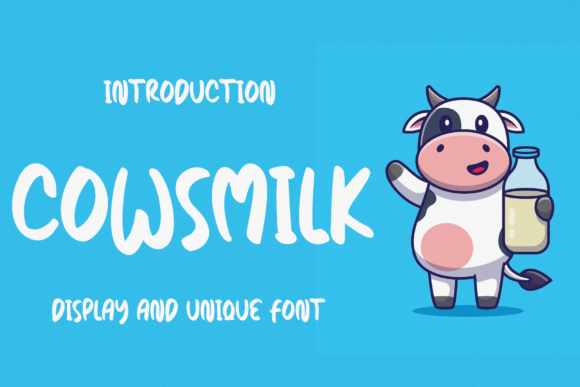
Crafting Joy with the Cowsmilk Font
Imagine you’re working on a children’s book, and you need to add a playful title that will capture the attention of your young readers. You browse through your font library, searching for the perfect combination of whimsy and charm. And then, you stumble upon it – the Cowsmilk Font. This adorable display font is designed to bring a smile to your readers’ faces, making it the perfect choice for cartoon-related designs, children’s games, and more.
With its friendly and adaptable nature, the Cowsmilk Font is a valuable asset for designers looking to add a touch of joy to their creations. Whether you’re designing a quote, a title, or a brand name, this font is sure to make a lasting impression. Its versatility and charm make it a must-have for any designer looking to create something truly special.
Cowsmilk Font Key Features
- Font Family: A sans-serif font with a modern and playful twist, designed for digital use.
- Unique Characteristics: The font features a distinctive rounded edge and a subtle, hand-drawn feel, giving it a friendly and approachable appearance.
Cowsmilk Font Review
I’ve been experimenting with the Cowsmilk Font, and I have to say, it’s been a mixed bag for me. Here are my thoughts.
- Unique design: The Cowsmilk Font has a distinct, playful vibe that’s perfect for projects that need a whimsical touch.
- Creativity booster: The font’s quirky style can inspire creativity and help designers think outside the box.
- Readability: Despite its unconventional design, the font is surprisingly readable, even at smaller sizes.
- Overuse potential: The Cowsmilk Font’s playful style can be easily overused, making it look gimmicky or unprofessional.
- Limited versatility: The font may not be suitable for formal or serious projects, where a more traditional font would be a better fit.
- Technical issues: I’ve experienced some technical difficulties with the font, such as kerning issues and inconsistent line spacing.
Overall impression
The Cowsmilk Font is a fun, creative tool that can add a unique touch to certain projects. However, its limitations and potential for overuse should be carefully considered before using it. With some caution and restraint, this font can be a valuable addition to a designer’s toolkit.
Getting the Most Out of the Cowsmilk Font
To get the most out of the Cowsmilk font, try using it in bold or italic styles to add emphasis to your text.
Use the Cowsmilk font in combination with other fonts to create a unique and eye-catching design.
The Cowsmilk font is commonly used in:
Food and beverage branding
Children’s products and packaging
Playful and whimsical designs
Alternatives to Cowsmilk Font for Designers
Great Vibes Font is a modern, elegant script font that is perfect for adding a touch of sophistication to your designs. It’s ideal for use in logos, invitations, and other creative projects where a flowing, handwritten feel is desired.
Compared to Cowsmilk Font, Great Vibes Font has a more refined and polished look, making it suitable for high-end branding and marketing materials. While Cowsmilk Font has a more playful and casual vibe, Great Vibes Font is more suitable for formal and professional applications.
Pacifico Font is a beautiful, elegant script font that is inspired by the Pacific coast. It’s perfect for use in designs that require a touch of luxury and sophistication, such as branding, packaging, and advertising materials.
Compared to Cowsmilk Font, Pacifico Font has a more refined and sophisticated look, making it suitable for high-end applications. While Cowsmilk Font has a more casual and playful feel, Pacifico Font is more suitable for formal and professional projects.